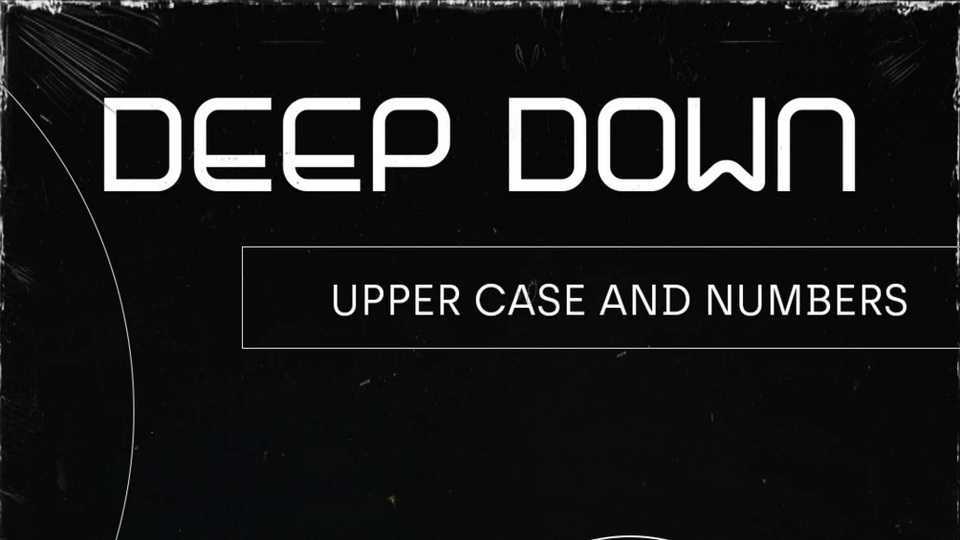
Download Deep Down font, a geometric display typeface that has a distinct modern techno look. Deep Down font is great for posters, covers, logos, headlines, banners, and game products.